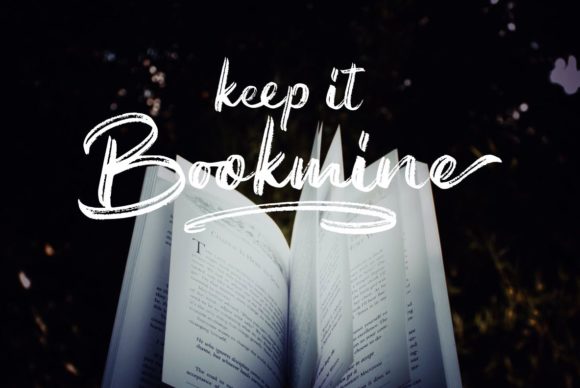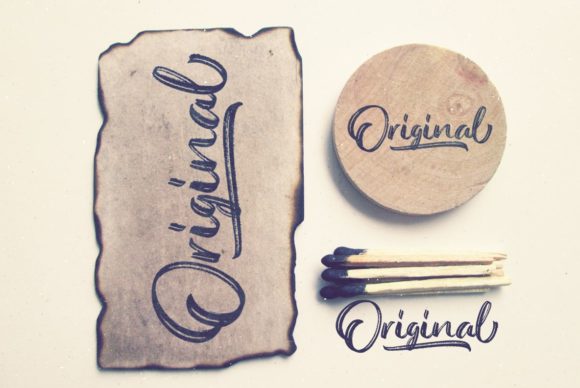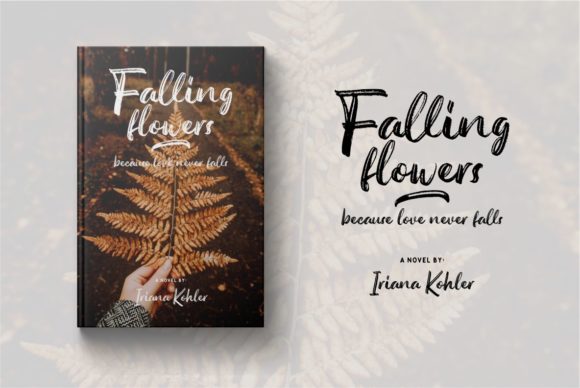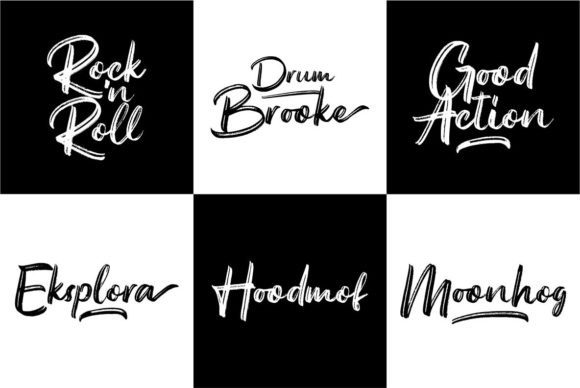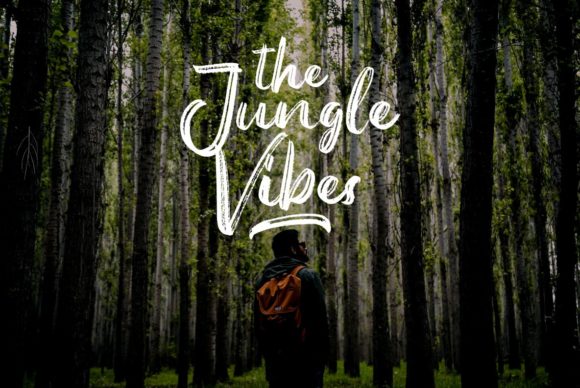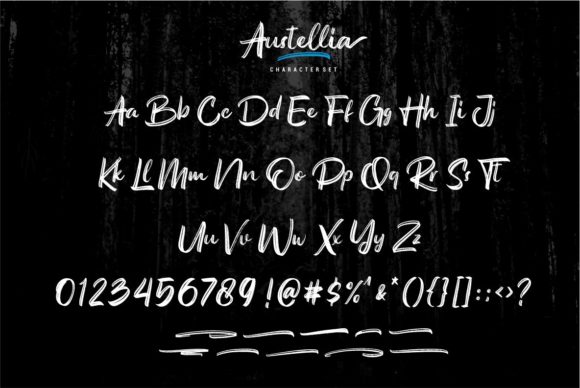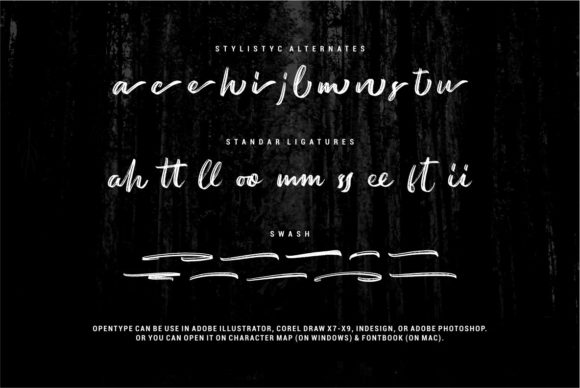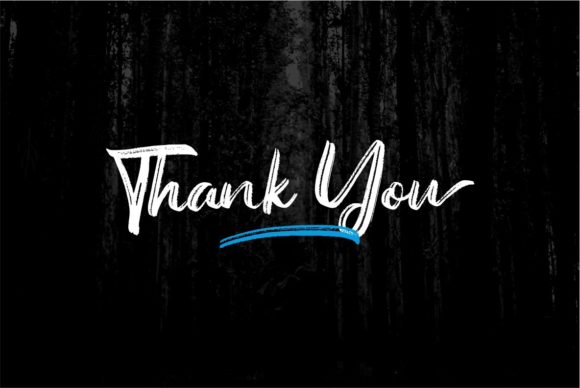
Austellia Font
About Austellia Font
Austellia is a bold and unique handwritten font with lots of personality. It will elevate any design project with its bold swashes.